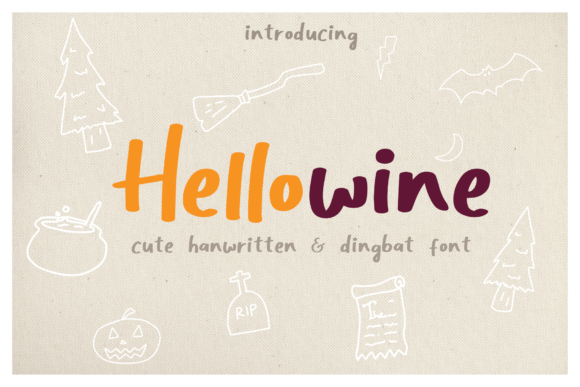
Introduce yourself to Hellowine Font, a charming handwritten display font family designed to let your words dance on the page. With its free-flowing strokes and irregular hand-lettered style, Hellowine brings a genuine human touch to your digital world. Whether you're a blogger, a social media enthusiast, or a graphic designer, Hellowine is your perfect companion for crafting captivating content that resonates with your audience.
Let Hellowine's playful and whimsical style add a dash of fun and personality to your projects. Its stunning brush effects, delightful swashes, and eye-catching banners transform ordinary text into artistic masterpieces. Imagine your designs coming alive as the Hellowine font dances across the screen, capturing attention and leaving a lasting impression.
Immerse yourself in the world of Hellowine and unleash your creativity. Combine different font styles, incorporate enchanting swashes and banners, and watch as even a single word blossoms into a magnificent masterpiece. Hellowine is not just a font; it's an experience that ignites your imagination and inspires you to create stunning visuals that captivate and enchant.
Beyond its aesthetic appeal, Hellowine is meticulously designed to provide exceptional usability. Its versatile nature makes it suitable for a wide range of projects, from social media posts and blog headers to eye-catching posters and product packaging. Whether you're a seasoned designer or just starting out, Hellowine's user-friendly features make it a breeze to incorporate into your creative projects.
So, embrace the magic of Hellowine Font and elevate your digital presence to new heights. With its captivating charm and endless creative possibilities, Hellowine is the key to unlocking your true creative potential. Download Hellowine today and let your words take center stage in a symphony of style and imagination!